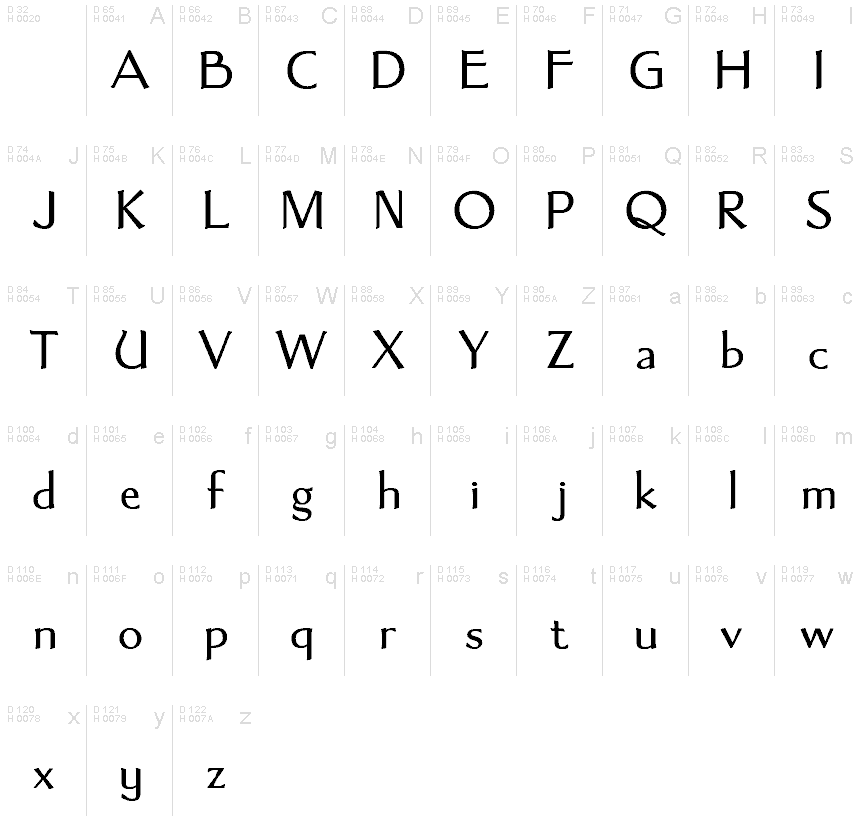
CS Briscoe Regular Demo
CS Briscoe font by Craft Supply Co. blends elegant and sophisticated qualities, drawing from classic, traditional influences to create the ultimate formal serif typeface. This delicate font instantly elevates your project’s appearance through its attractive characters with thin horizontal lines and slightly thicker verticals as well as diagonal strokes.